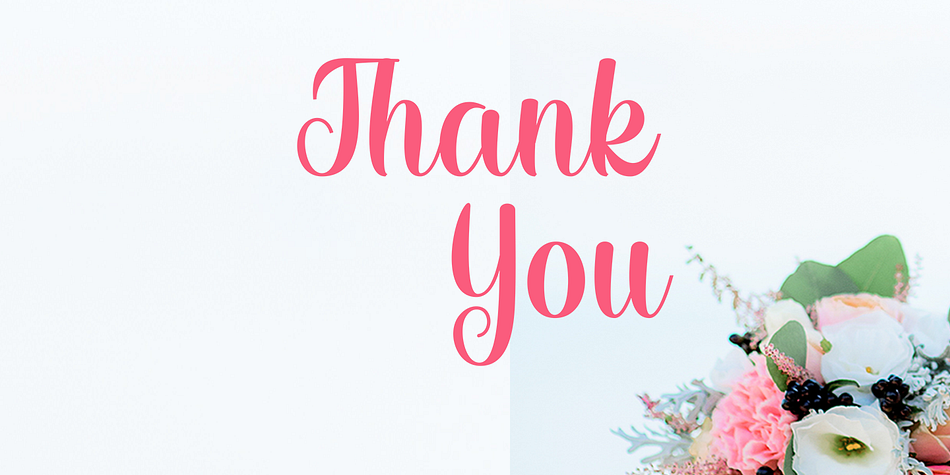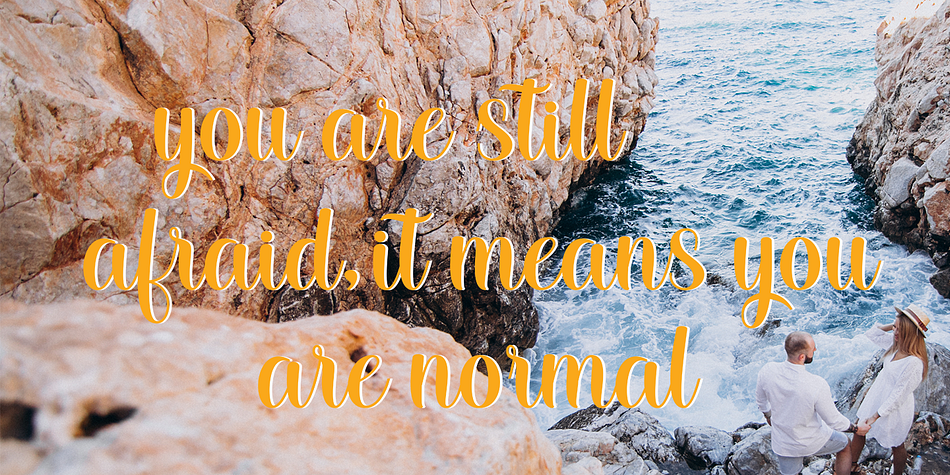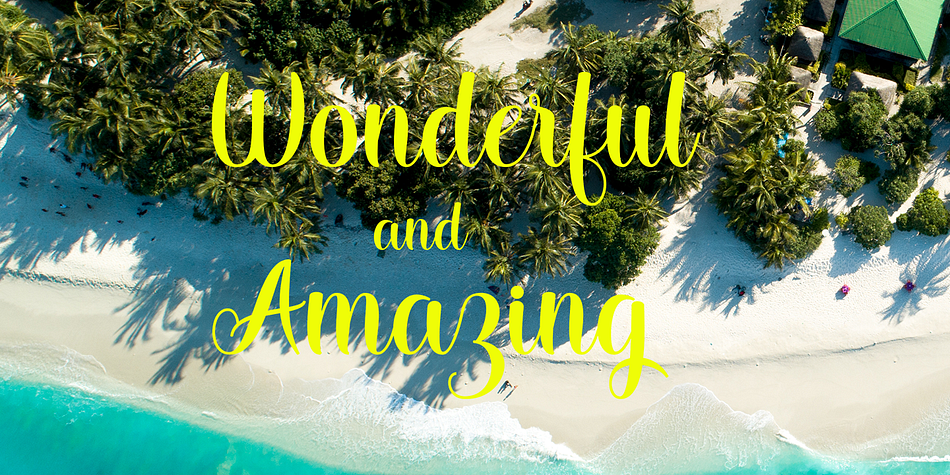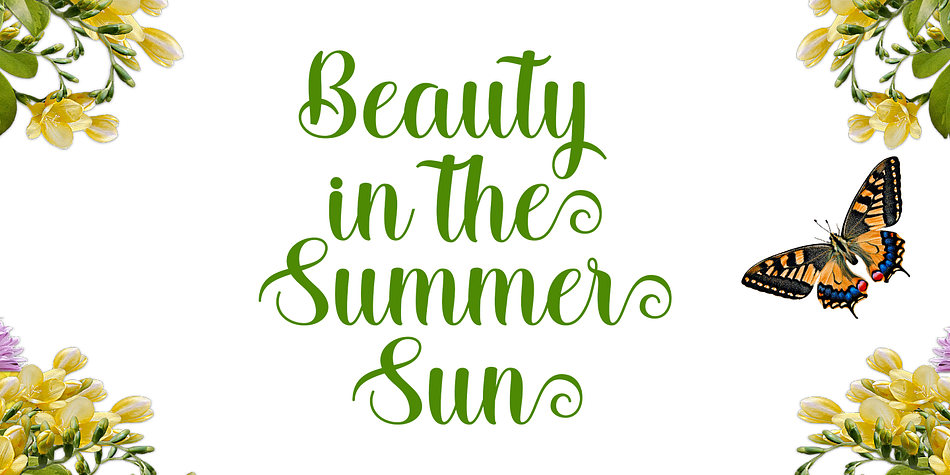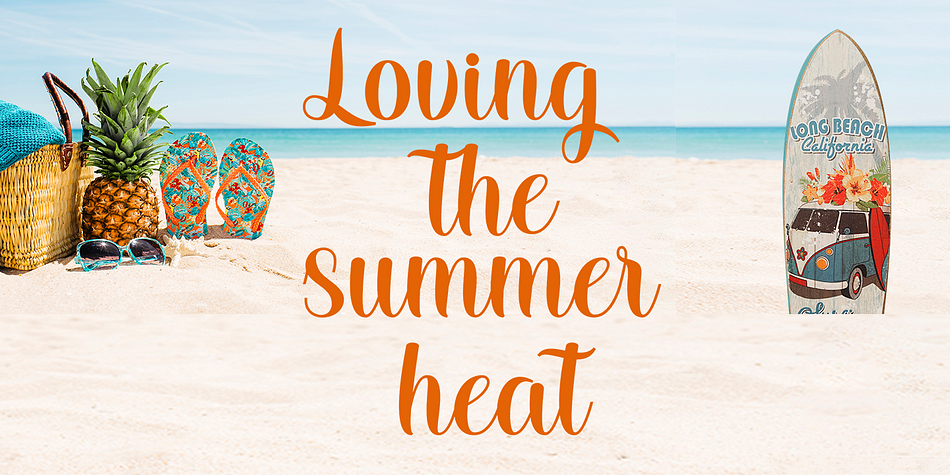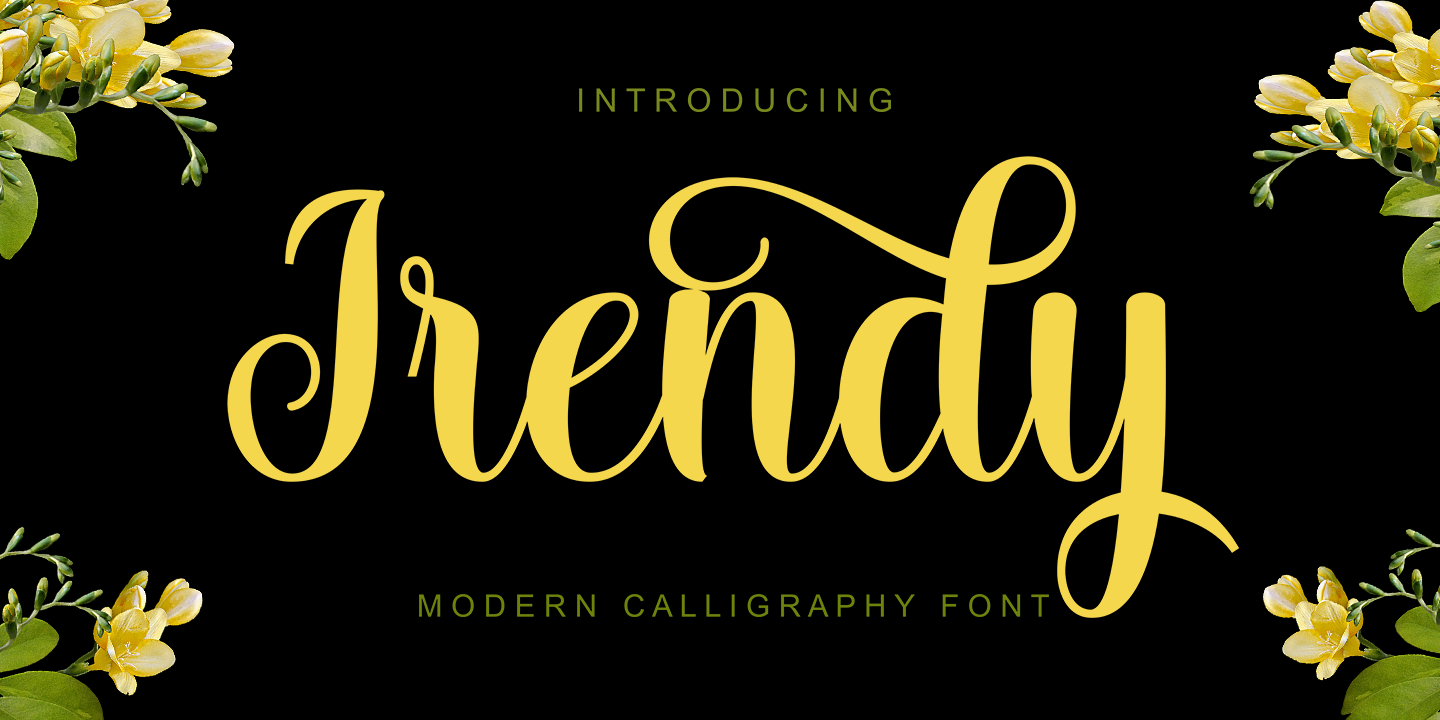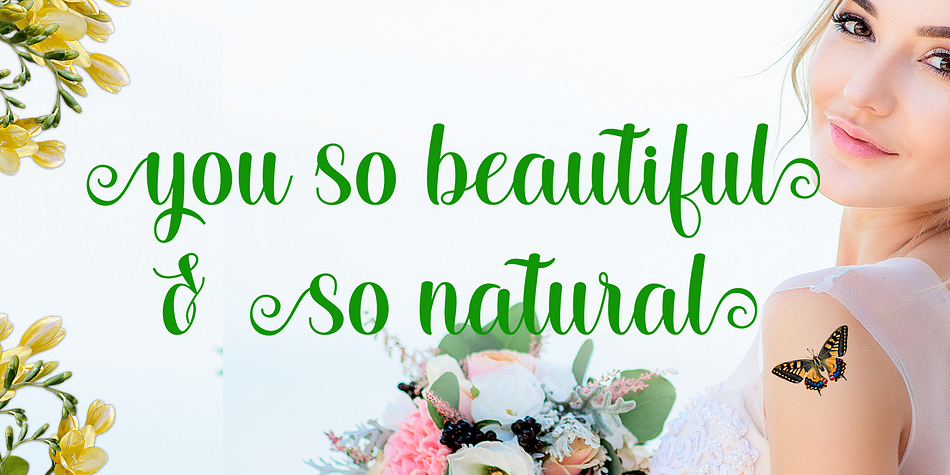
Irendy
Irendy is a brush script font family published by Gatype.
Irendy is sweet calligraphy font, including Regular. This font is casual and pretty with swashes.
Can used for various purposes. such as logo, product packaging, wedding invitations, branding, headlines, signage, labels, signature, book covers, posters, quotes and more.